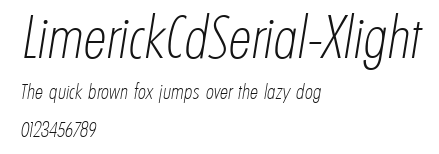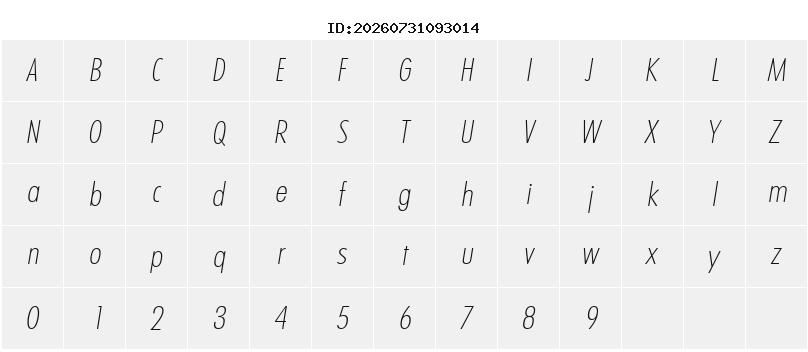
LimerickCdSerial-Xlight Preview
• Font Name: LimerickCdSerial-Xlight
• Font ID: SoftMaker Software GmbH LimerickCdSerial-Xlight-Italic
• Full Font Name: LimerickCdSerial-Xlight-Italic
• Version: Version 1.0 28-08-2002
• PostScript Name: LimerickCdSerialXlightItalic
• Character Count: 251
• Designer: SoftMaker Software GmbH
• Manufacturer: SoftMaker Software GmbH
About LimerickCdSerial-Xlight.ttf
LimerickCdSerial-Xlight.ttf is a modern, elegant sans-serif font designed for ultimate readability and visual harmony. Perfect for branding, headlines, web design, and print materials.